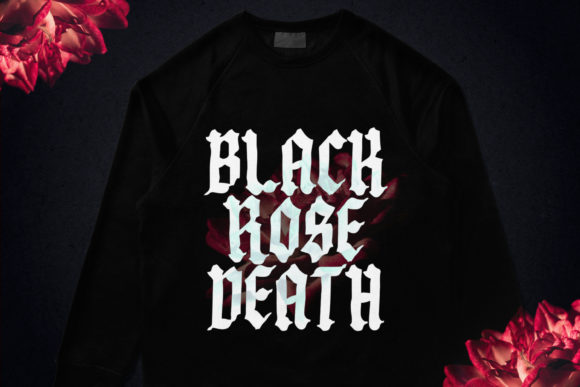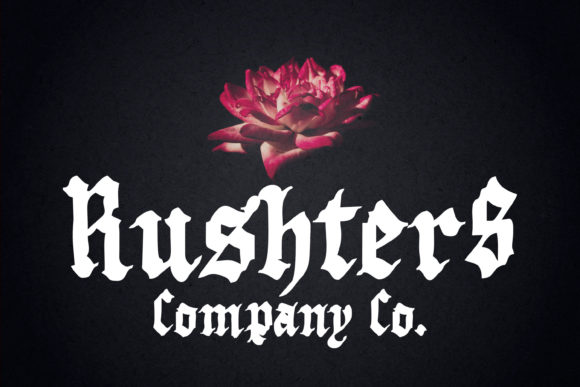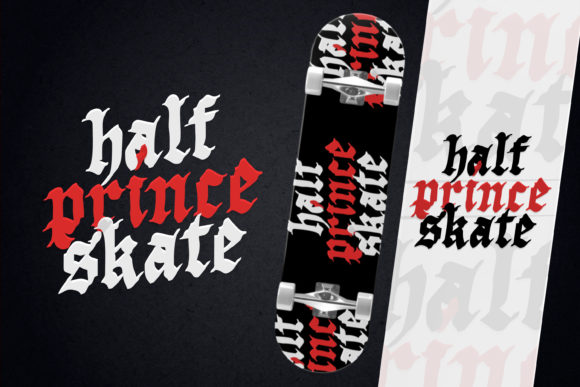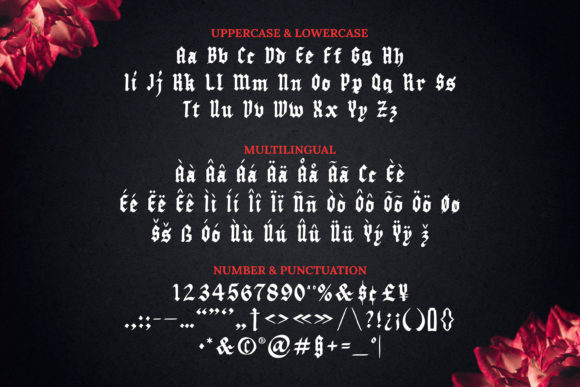
Unleash the Power of Black Letter Curve Font: Elevate Your Designs with Bold and Daring Typography
In the world of typography, few fonts command attention and evoke a sense of grandeur like the Black Letter Curve Font. This splendid and imposing blackletter font is perfect for creative projects that require a bold and daring aesthetic. Whether you’re designing posters, branding materials, apparel, or working on a music band’s visual identity, Black Letter Curve Font is an excellent choice to make a lasting impression.
What is Black Letter Curve Font?
Black Letter Curve Font is a modern take on traditional blackletter typography. Characterized by its dramatic flourishes, sharp serifs, and bold lines, this font exudes a sense of luxury, power, and sophistication. The curved strokes and intricate details add an air of elegance, making it suitable for a wide range of applications, from medieval-inspired designs to modern, edgy projects.
Key Features of Black Letter Curve Font
- Bold and Daring: Black Letter Curve Font is designed to make a statement. Its bold lines and dramatic flourishes ensure that your text stands out and grabs attention.
- Highly Versatile: This font can be used for various design projects, including posters, flyers, branding materials, apparel designs, and more.
- Elegant and Sophisticated: The curved strokes and intricate details add an air of elegance, making it perfect for designs that require a touch of luxury.
- Easy to Read: Despite its bold and ornate design, Black Letter Curve Font remains highly legible, ensuring that your message is conveyed clearly.
Use Cases for Black Letter Curve Font
Black Letter Curve Font is an incredibly versatile font that can be used in a variety of design projects. Here are some use cases to get you started:
- Posters and Flyers: Create eye-catching posters and flyers for events, concerts, or promotions with Black Letter Curve Font.
- Music Bands and Artists: Use this font to create bold and striking branding materials for music bands, artists, or music festivals.
- Branding and Logo Design: Add a touch of elegance and sophistication to your brand’s identity with Black Letter Curve Font.
- Apparel Designs: Create stunning apparel designs, such as t-shirts, hoodies, or hats, with this bold and daring font.
- Packaging Design: Use Black Letter Curve Font to create eye-catching packaging designs for products, adding a touch of luxury and sophistication.
Tips for Using Black Letter Curve Font
To get the most out of Black Letter Curve Font, here are some tips to keep in mind:
- Use it Sparingly: Due to its bold and ornate design, it’s best to use Black Letter Curve Font sparingly to avoid overwhelming the reader.
- Pair with Simple Fonts: Pair Black Letter Curve Font with simpler fonts to create visual contrast and ensure readability.
- Experiment with Colors: Try using different colors to add depth and visual interest to your design.
- Pay Attention to Kerning: Make sure to adjust the kerning to ensure that the letters are evenly spaced and visually appealing.
Black Letter Curve Font is a powerful and elegant font that can elevate your designs to the next level. Its bold and daring aesthetic makes it perfect for creative projects that require a touch of luxury and sophistication. With its versatility, ease of use, and stunning design, Black Letter Curve Font is an excellent addition to any designer’s toolkit. So, unleash the power of Black Letter Curve Font and take your designs to new heights!